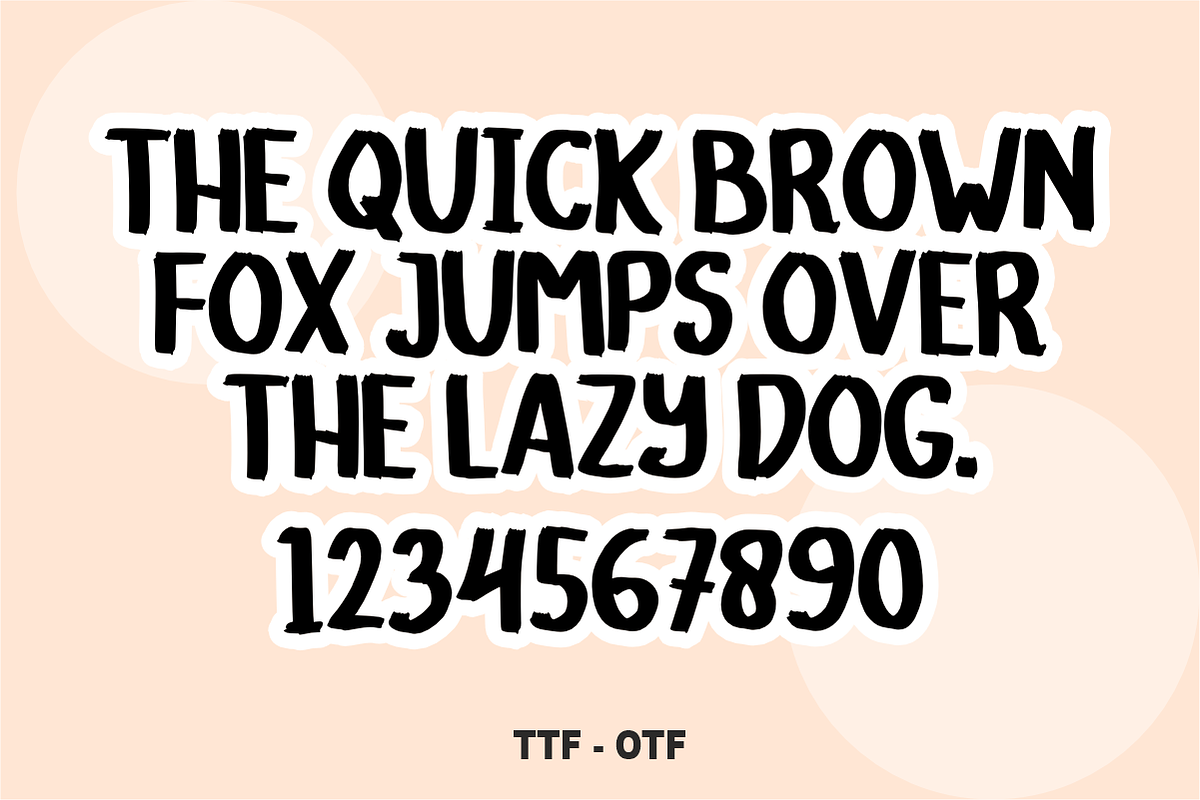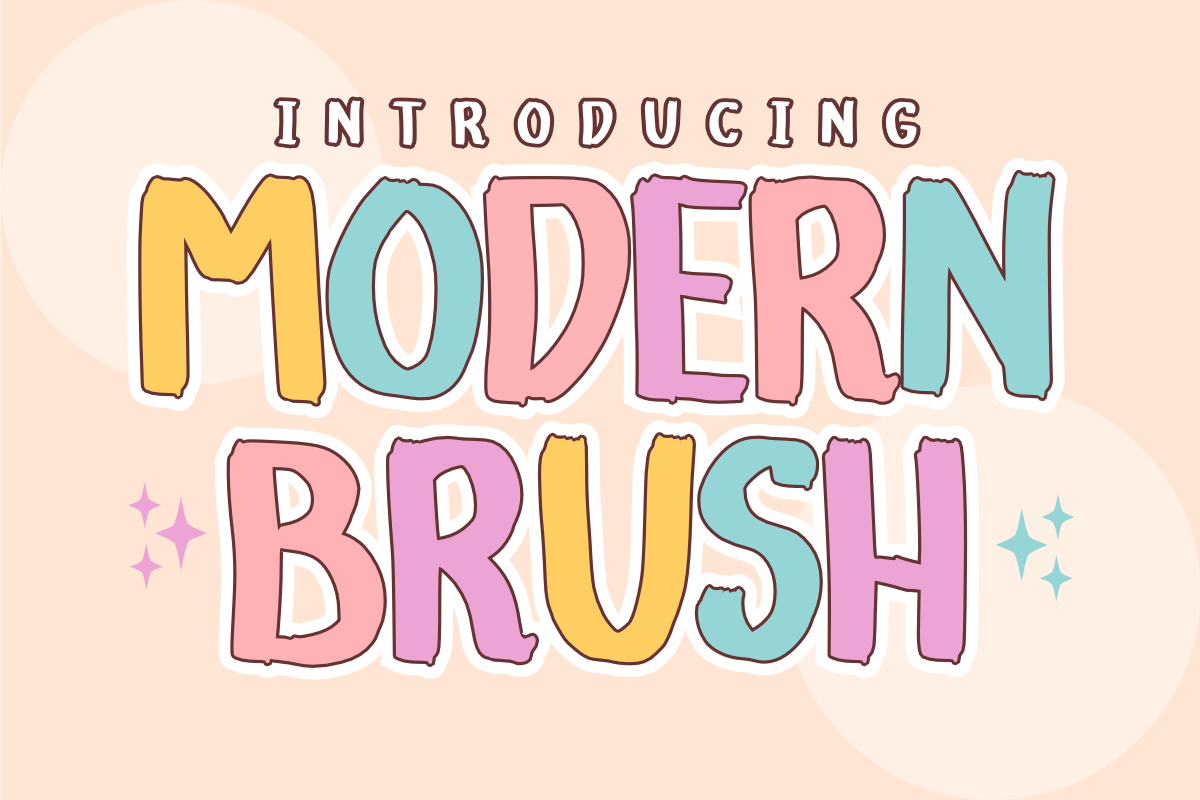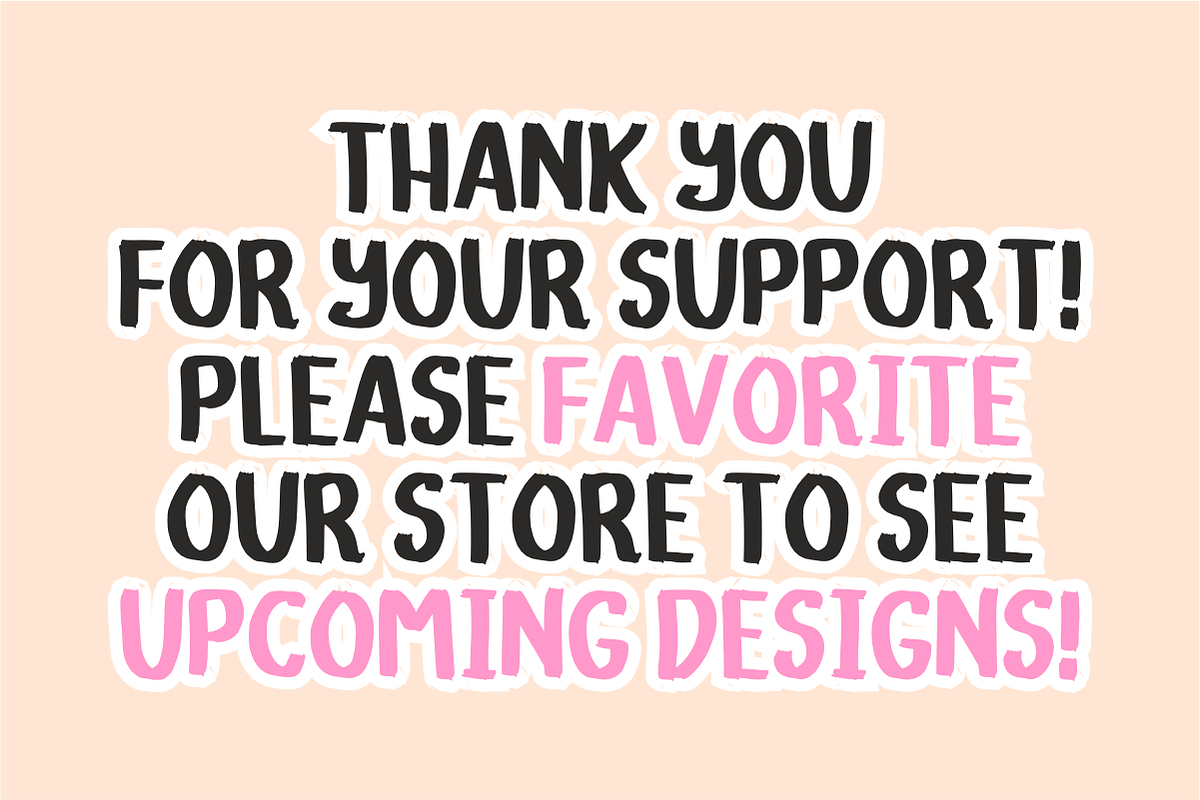
Modern Brush – Hand Drawn Font
Modern Brush – Playful Hand-Drawn Display Font 🎨✨
Bring an authentic, hand-crafted touch to your designs!
Modern Brush is a bold and energetic display font that perfectly balances artistic brush textures with a playful, rounded silhouette. Designed to look effortlessly organic, this font captures the essence of manual brushwork while maintaining excellent clarity. It’s the ultimate choice for creators who want their projects to feel personal, modern, and full of life.
🌟 Why Modern Brush is a Game-Changer:
Authentic Texture: Features subtle, hand-drawn edges that give your text a realistic brush-painted feel.
Bold & Commandable: Its thick strokes make it a powerhouse for headlines, ensuring your message is the center of attention.
Artistic Versatility: Seamlessly transitions between playful children's themes and sophisticated, trendy lifestyle branding.
🎨 Perfect For:
🖌️ Creative Branding: Stand-out logos for art studios, boutiques, bakeries, or handmade businesses.
🍎 Educational Design: Creative classroom posters, engaging worksheets, and fun teacher resources.
👕 Merchandise & Apparel: On-trend t-shirt graphics, tote bags, and custom vinyl decals (Cricut & Silhouette compatible).
📱 Social Media & Web: High-impact Instagram quotes, blog headers, and vibrant YouTube thumbnails.
🎂 Life Events: Unique birthday invitations, greeting cards, and personalized event stationery.
Character Set: Bold & Artistic Uppercase Letters (A-Z).
Numbers & Symbols: Complete set of numerals (0-9) and essential simple punctuation.